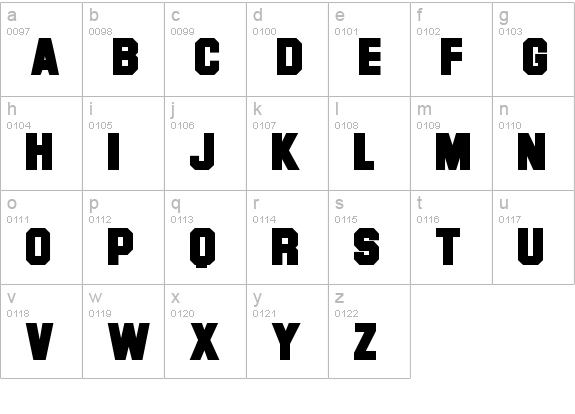
Font Font Details
Font font is a versatile and stylish typeface that is perfect for a wide range of design projects. This modern font features clean lines, elegant curves, and a timeless appeal that will make your text stand out. Whether you are designing a logo, website, poster, or any other creative project, Font font is sure to add a touch of sophistication and professionalism. The best part is that Font font is completely free to download at FontsMarket.com. This means that you can easily access this high-quality font without having to spend a dime. With its user-friendly design and wide range of characters, including uppercase and lowercase letters, numbers, and punctuation marks, Font font is a must-have for any designer looking to elevate their work. Don't miss out on the opportunity to enhance your projects with Font font. Download it for free today at FontsMarket.com and bring your designs to the next level!